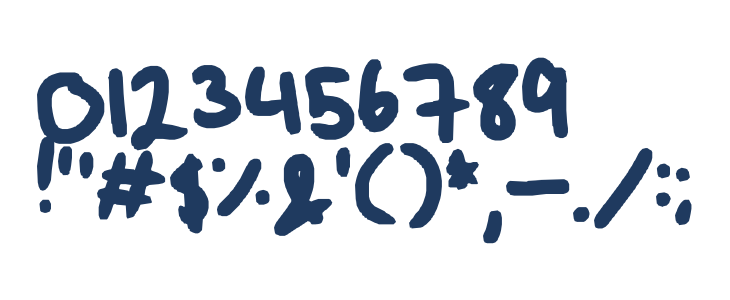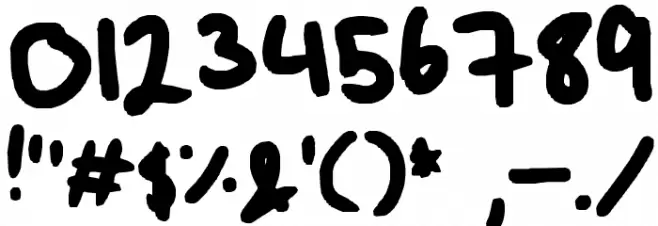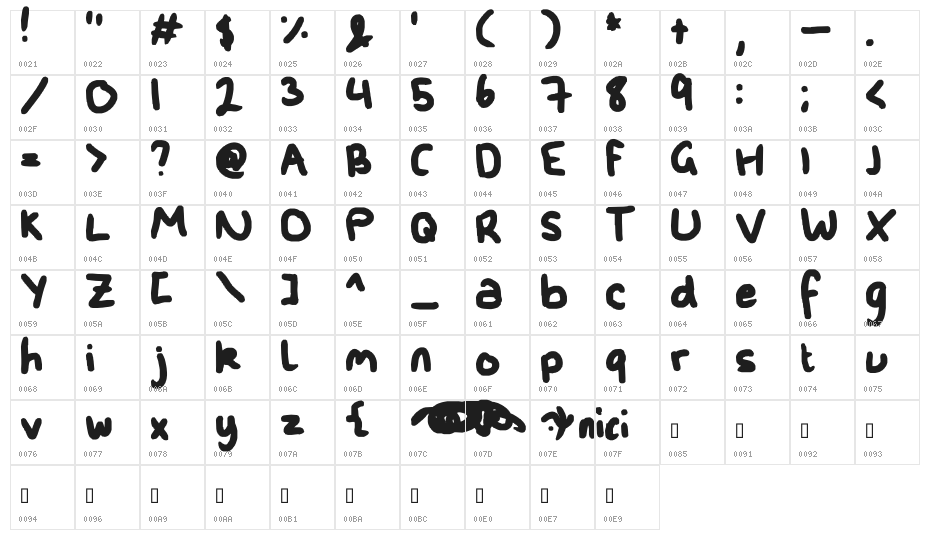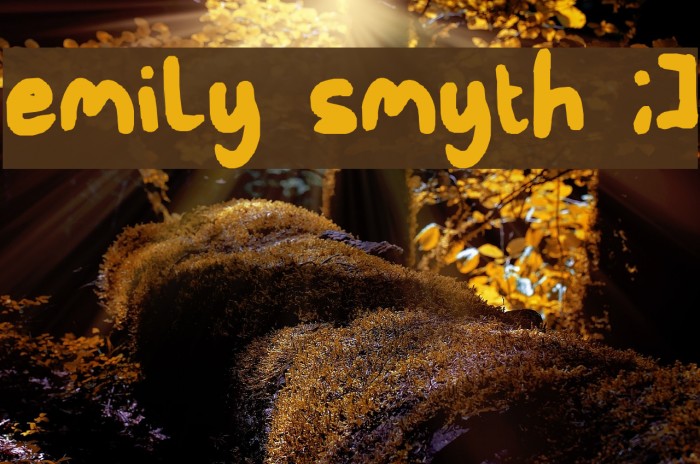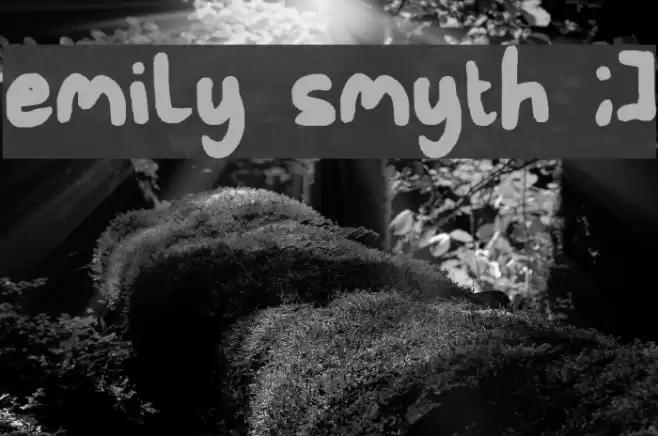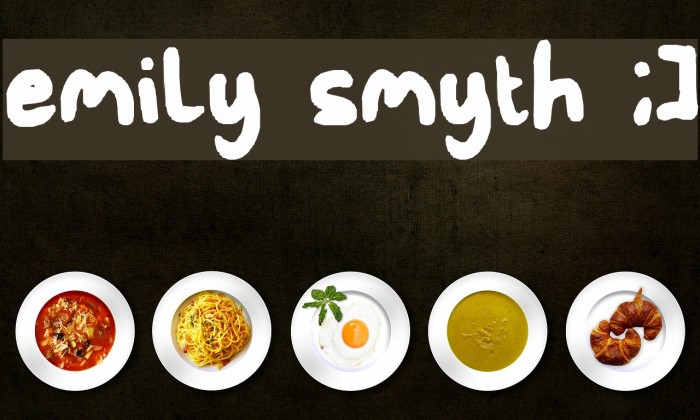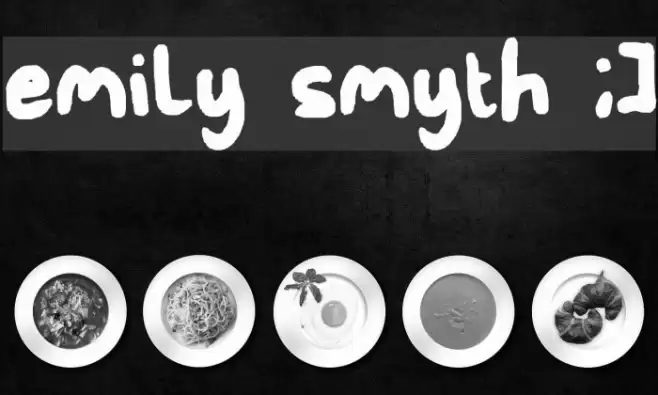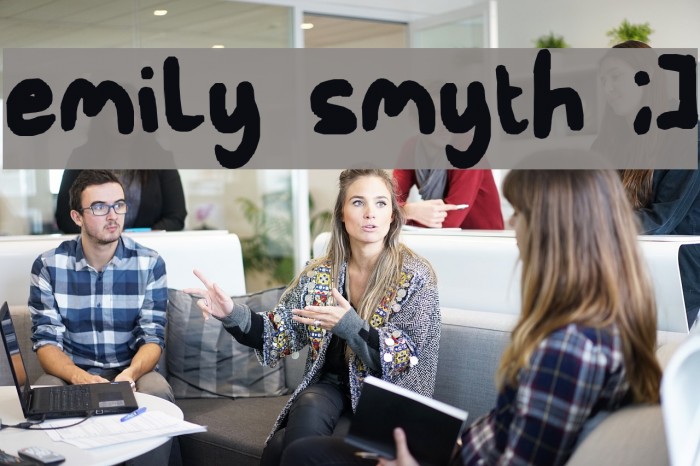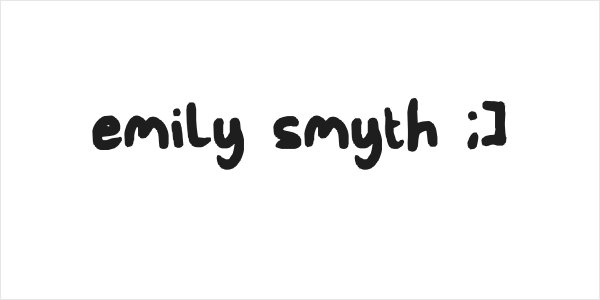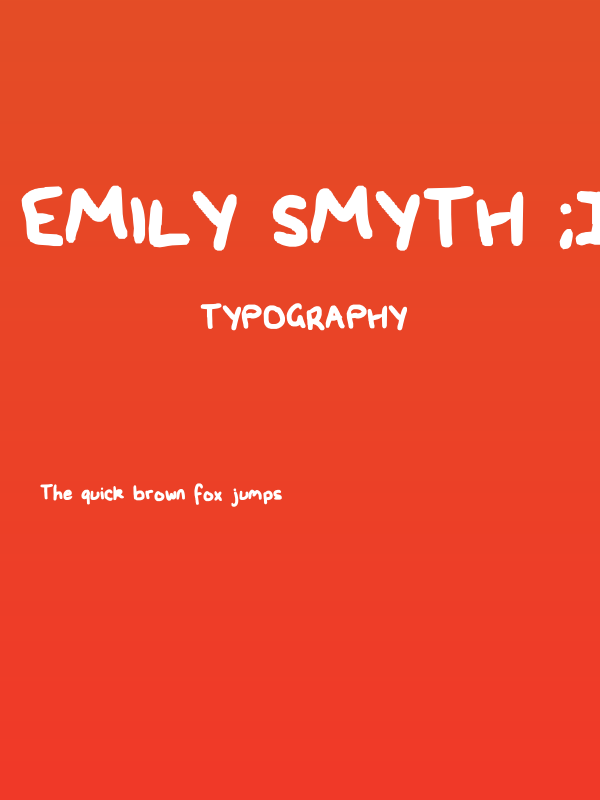
emily smyth ;] Font
emily smyth ;] Description
This font features a playful and casual handwritten style, characterized by its bold and rounded letterforms. The strokes are uneven, giving it a natural and organic feel, reminiscent of a marker or brush pen. The uppercase and lowercase letters maintain a consistent style, with a slight tilt that adds to its informal charm. Numbers and special characters are equally bold and maintain the same playful aesthetic, making them easily legible. The overall appearance is friendly and approachable, suitable for projects that aim to convey a sense of warmth and creativity.